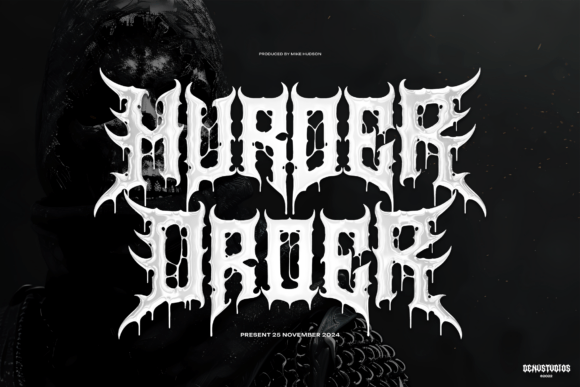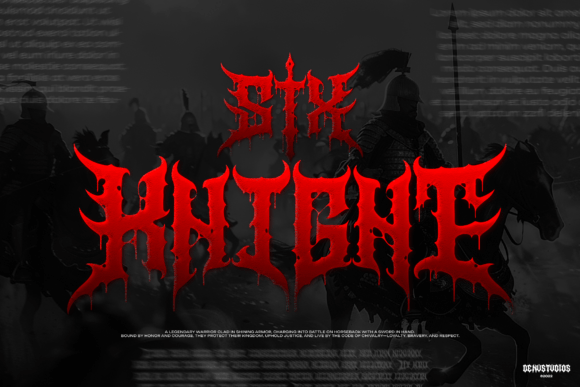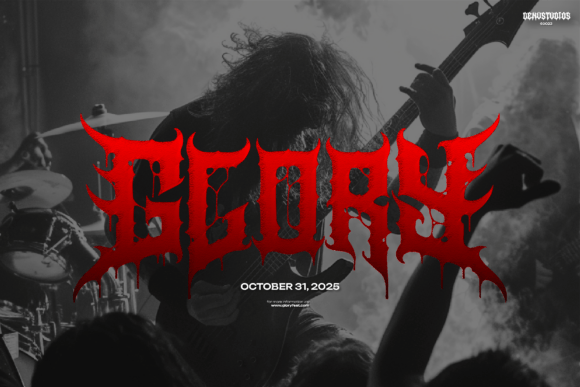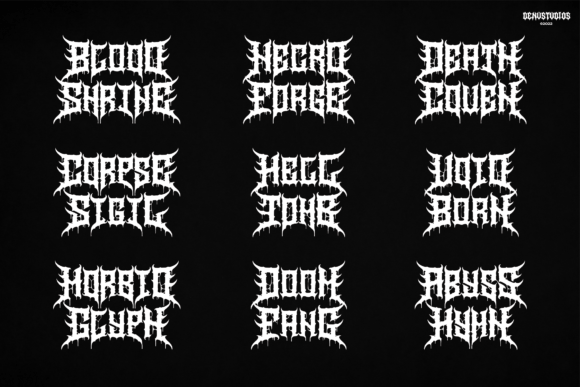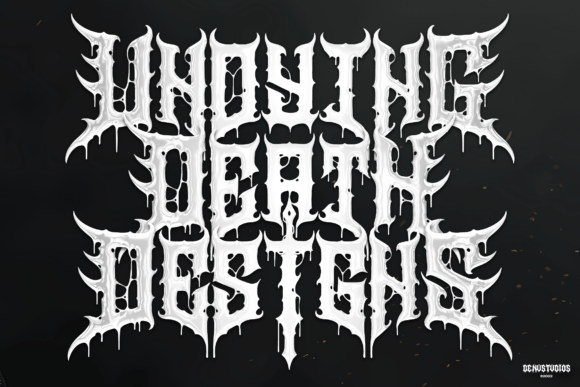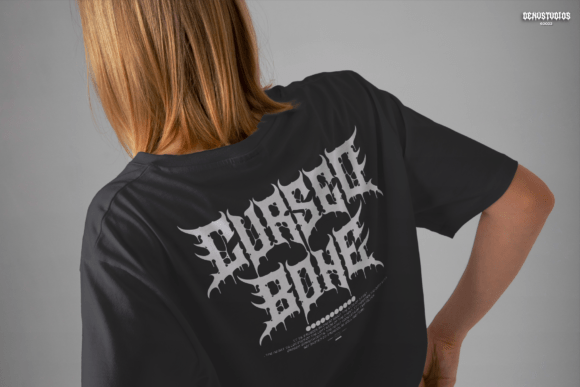
Introduction to Mortaly Sword Font
As a designer, there’s nothing quite like the thrill of finding the perfect font to bring your creative project to life. For those who crave the raw energy of extreme metal, the Mortaly Sword Font is about to become your new best friend. Imagine yourself in a dark, sweaty mosh pit, surrounded by the pulsating rhythms and face-melting riffs of a death metal concert – that’s the vibe you’ll get from this electrifying font.
With 182 glyphs and 3 alternate styles, the Mortaly Sword Font is a design resource that’s both versatile and powerful. Whether you’re creating a band logo, designing an album cover, or crafting a dark-themed brand identity, this font is sure to command attention and leave a lasting impression. And the best part? It’s available for free download, making it an accessible and high-quality design resource for designers of all levels.
But what really sets the Mortaly Sword Font apart is its ability to add an extra layer of depth and emotion to your designs. With its razor-sharp spikes and molten drips, this font is perfect for designers who want to create a truly immersive experience for their audience. So why settle for a bland, generic font when you can unleash the raw power of the Mortaly Sword Font on your next creative project?
Mortaly Sword Font
- Unique, bold, and modern font style with a transparent background, perfect for adding a touch of elegance to your design.
- Perfect for use in logo design, branding, and other creative projects where a bold and modern font is required.
Honest Review: Mortaly Sword Font
I recently stumbled upon the Mortaly Sword Font while searching for a high-quality design resource for a creative project. As a designer, I was excited to explore this free download and see if it lived up to its promise.
After using the font, I can confidently say that it’s a great addition to any design project. Here are some things that work well: ✨
- Unique and stylish design: The Mortaly Sword Font has a distinctive and eye-catching design that can add a touch of sophistication to any project.
- High quality: The font is well-crafted and looks great on various devices and backgrounds.
- Transparent background: This allows for easy customization and versatility in design projects.
However, I did encounter a few limitations: ⚠️
- Limited character set: The font may not be suitable for projects that require a wide range of characters or languages.
- No bold or italic variations: This may limit the font’s use in certain design contexts.
Overall, I’m impressed with the Mortaly Sword Font and would recommend it to designers looking for a high-quality, unique font for their creative projects. While it may have some limitations, it’s a great addition to any design resource collection.
For the best results, use the Mortaly Sword Font in combination with other high-quality design resources. Experiment with different font sizes, colors, and styles to get the most out of it.
The Mortaly Sword Font is ideal for various creative projects, including:
- Typography
- Branding
Yes, Mortaly Sword Font has a transparent background, making it ideal for use in creative projects where you need to overlay text on images or videos. The transparent background also helps to create a clean and modern design aesthetic.
Is Mortaly Sword Font suitable for high-quality design projects?
Yes, Mortaly Sword Font is a high-quality design resource that’s perfect for creative projects. Its clean lines, modern typography, and transparent background make it an excellent choice for designers looking to create stunning visual effects.